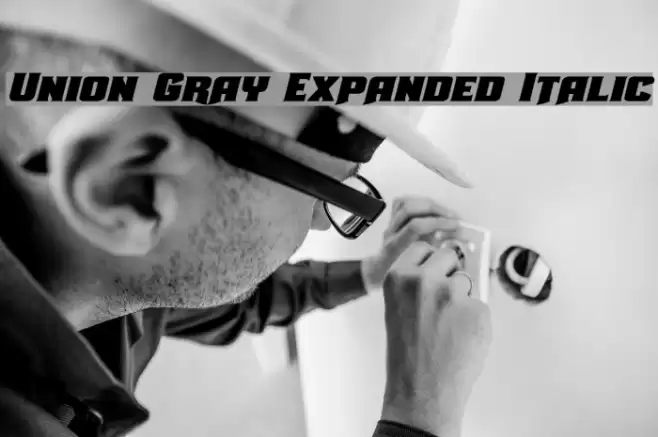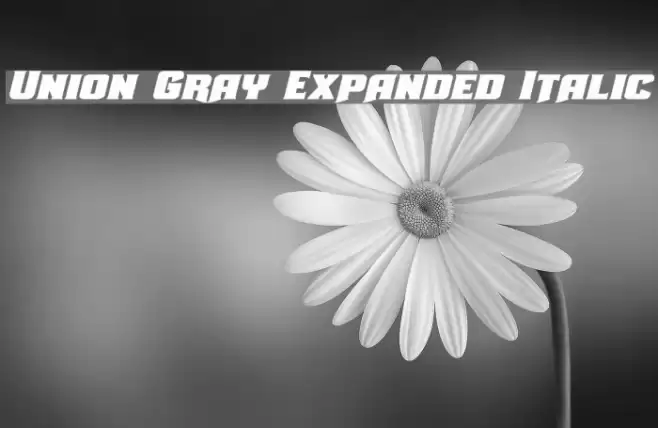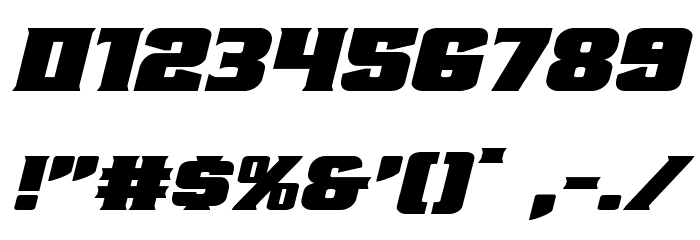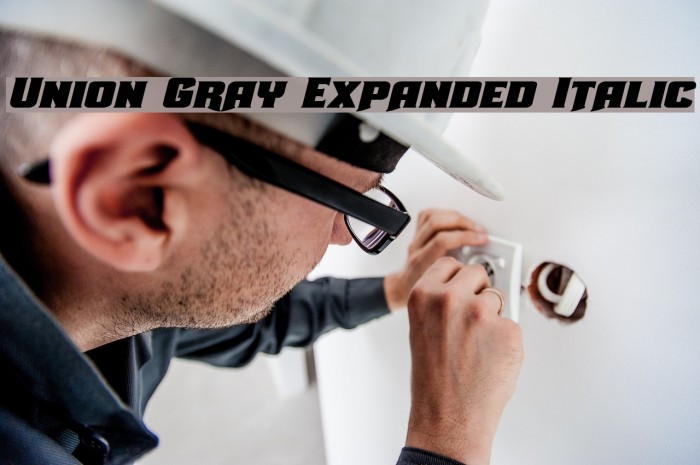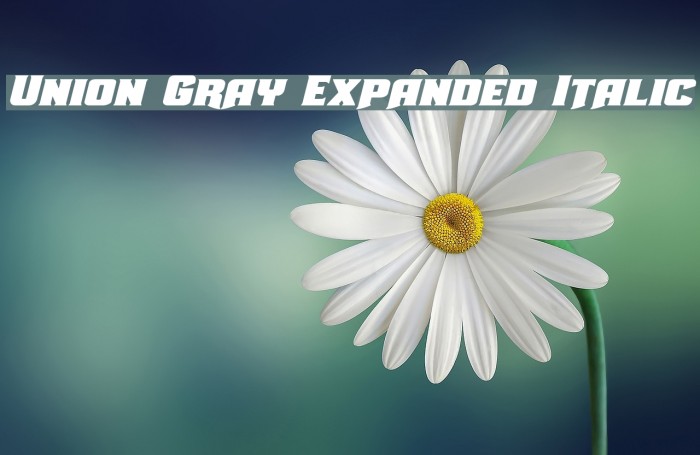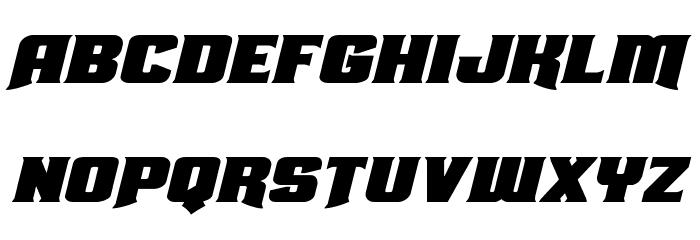
Union Gray Expanded Italic Font
Union Gray Expanded Italic Description
This font features a bold and dynamic style with an expanded width and italic slant, creating a sense of movement and energy. The characters are robust and angular, with sharp edges and a strong presence. The uppercase letters are particularly striking, with a consistent height and width that make them ideal for impactful headlines. The numerals and special characters maintain the same bold aesthetic, ensuring uniformity across all text elements. This font's unique style makes it suitable for projects that require a modern and assertive look.
A bold, expanded, and italic font with a dynamic and modern style from Uncategorized fonts.
- Proposed Projects: Ideal for sports branding, dynamic posters, modern logos, and attention-grabbing headlines.